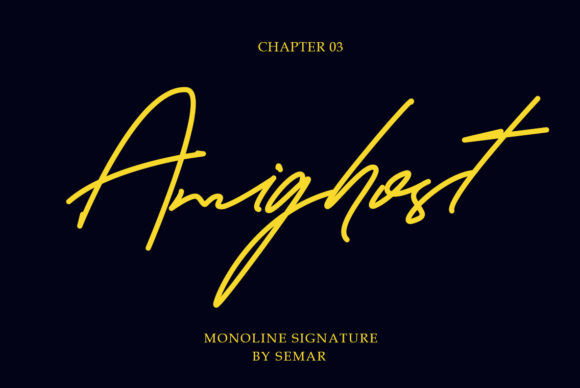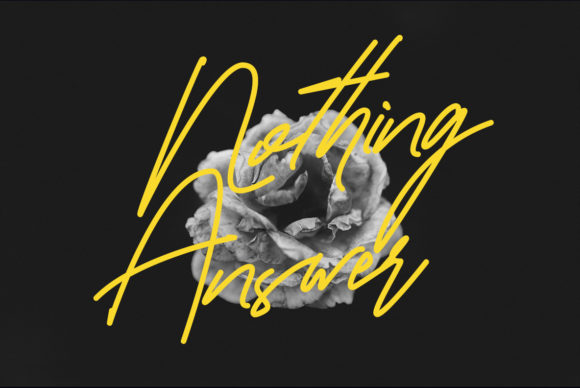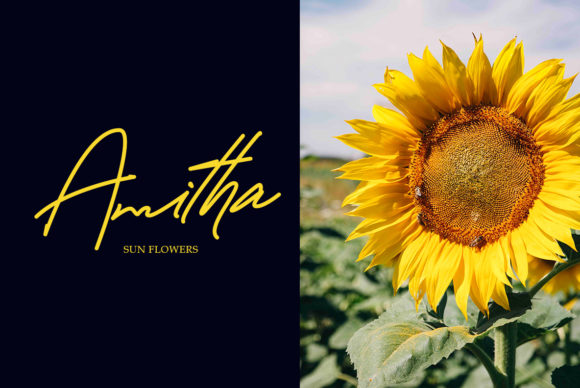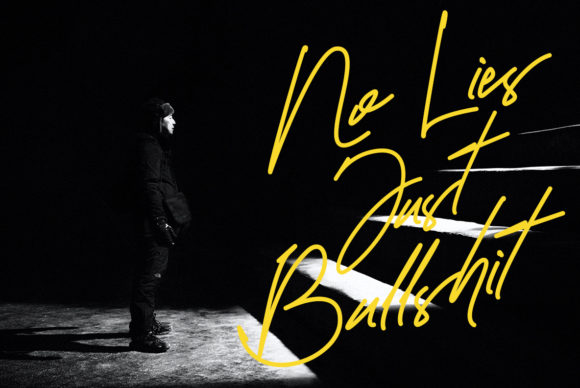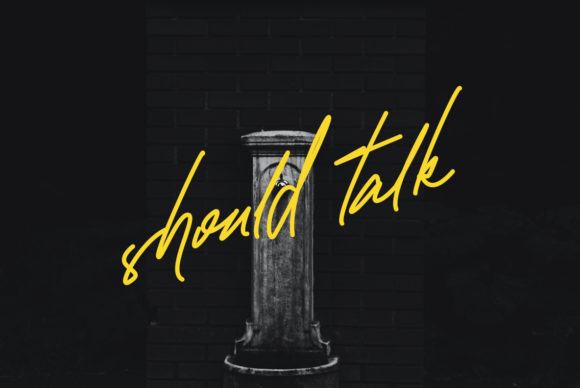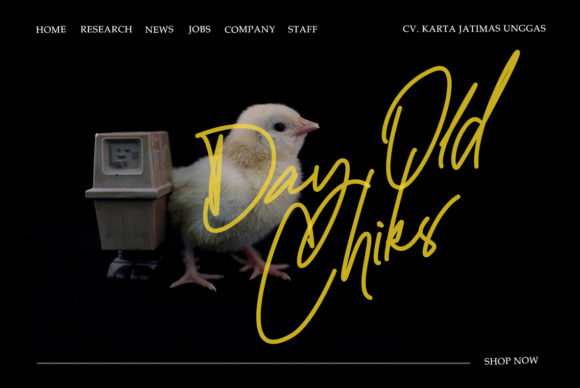
Amighost Font
About Amighost Font
Amighost is an elegant handwritten font with a nostalgic feel. It looks stunning on wedding invitations, thank you cards, quotes, greeting cards, logos, business cards and every other design which needs a handwritten touch.